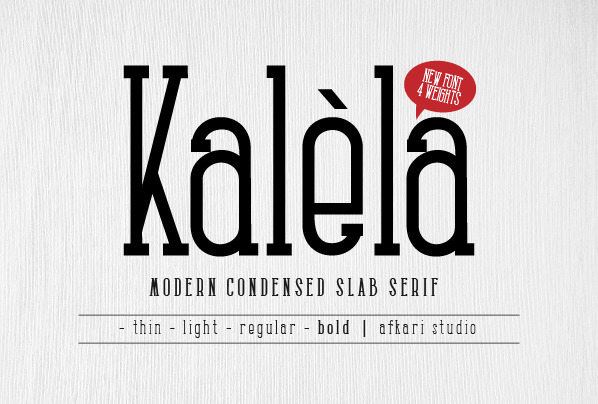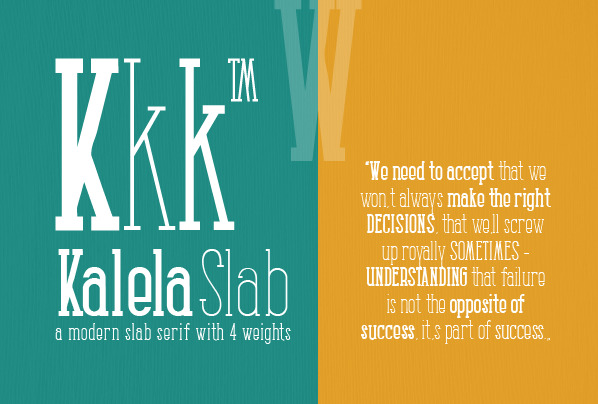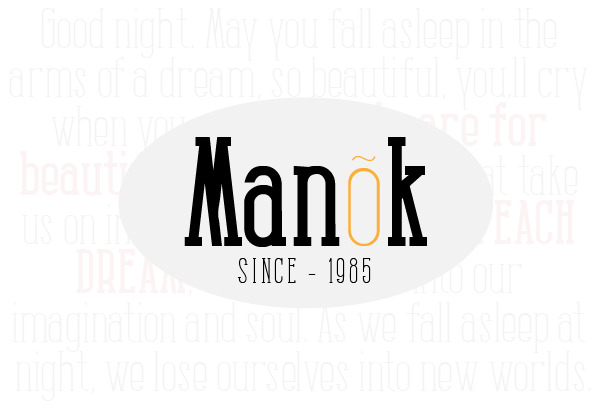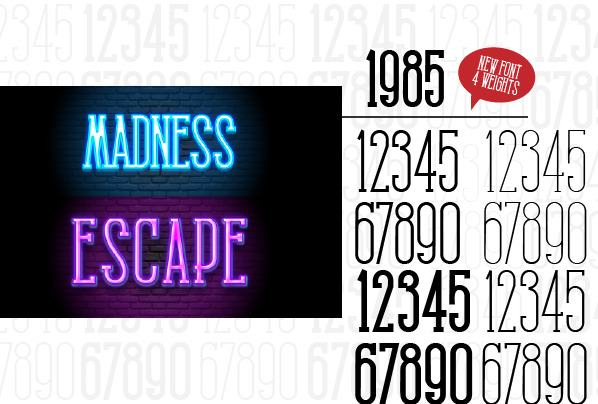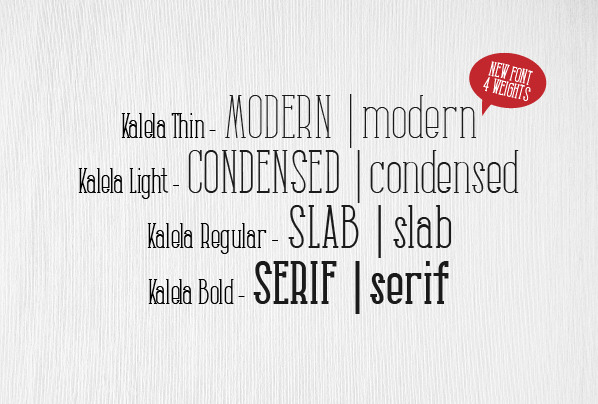
Kalela Slab Condensed Slab Serif Font
Kalela Slab is Condensed Slab Serif Font a Modern Condensed Slab serif with solid font files. Suitable for branding, name card, stationary, design title, blog header, Logo, greeting cards, quotes, posters, art quote, typography.
Kalela Slab Condensed Slab Serif Font also suitable for your any projects.
Kalela Slab With 4 Weight; Thin, Light, Regular and Bold